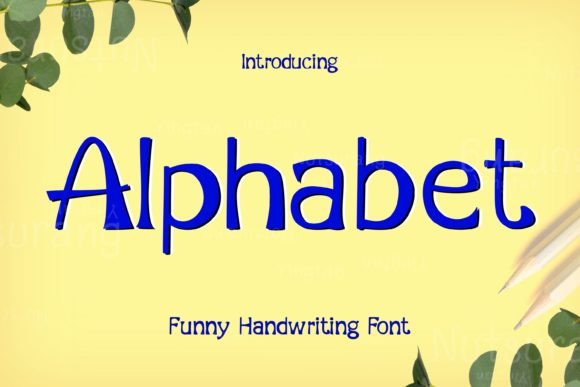
The Alphabet Font: A Friendly and Whimsical Companion for Your Design Projects
I’ll never forget the time I was working on a branding project for a children’s play center. I had spent hours agonizing over the perfect color palette and logo design, but something was missing. That’s when I realized I needed a font that would bring a smile to kids’ faces and make the brand feel approachable. After scouring the internet, I stumbled upon the Alphabet Font, and it instantly became the perfect fit. In this article, I’ll share my love for this fun and playful handwritten font, its features, and how to make the most of it in your design projects.
An Honest Review of Alphabet Font
- ✨ Modern yet whimsical style that adds a friendly touch to any project
- 💫 Beautifully crafted handwritten letters with a consistent feel
- 🎨 Versatile and suitable for a wide range of design projects, from branding to invitations
While Alphabet Font is an excellent choice for many projects, there are a few things to keep in mind:
- 🤔 Limited availability of stylistic alternates, which might not offer enough variation for some designs
- ⚠️ Not ideal for body text or long-form content, as it’s best suited for headlines and titles
The Designer Inspiration Behind Alphabet Font
According to its creators, Alphabet Font was inspired by the joy of childhood and the beauty of handwritten letters. The designers aimed to craft a font that would bring a smile to people’s faces and add a touch of whimsy to any design project. With its modern yet playful style, Alphabet Font has become a favorite among designers and crafters.
Q: What type of projects is Alphabet Font best suited for?
A: Alphabet Font is ideal for branding, titles, headlines, and short text, such as invitations, posters, and social media graphics.
Q: Can I use Alphabet Font for body text or long-form content?
A: While Alphabet Font is highly legible, it’s best suited for titles and short text. For body text or long-form content, consider using a more traditional serif or sans-serif font.